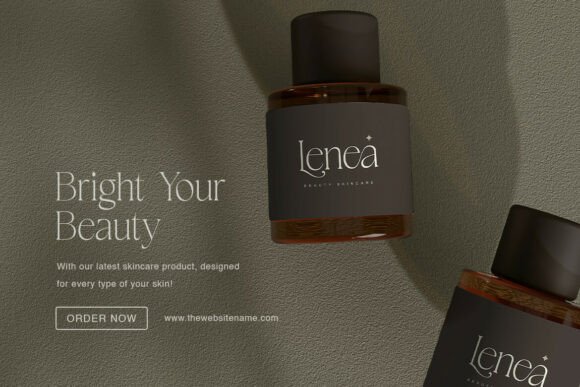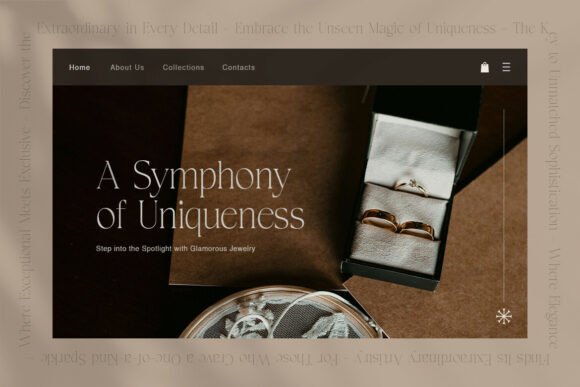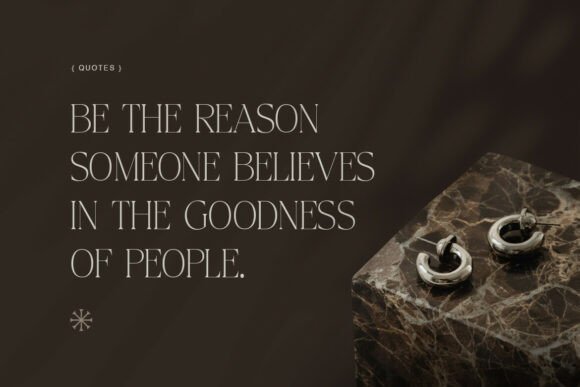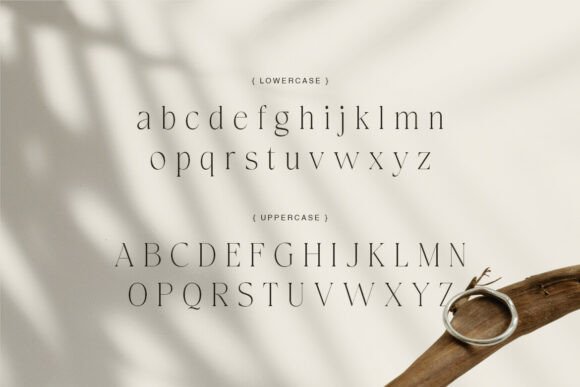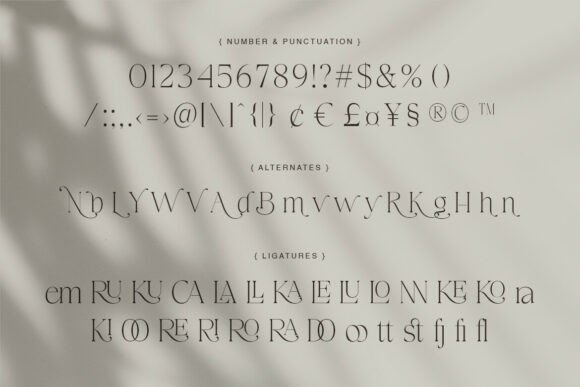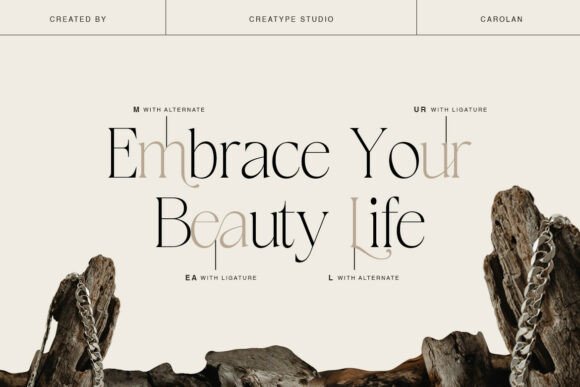
Introduction to Carolan Font
Carolan is an elegant display serif with couture poise and a whisper of classic romance.
Its high-contrast strokes, crisp wedge serifs, and graceful swashes (spot that sweeping R/O curve) bring the โluxury editorialโ vibe to any layout without trying too hard Carolan font is PUA encoded, allowing effortless access to all glyphs, swashes, and alternate characters.